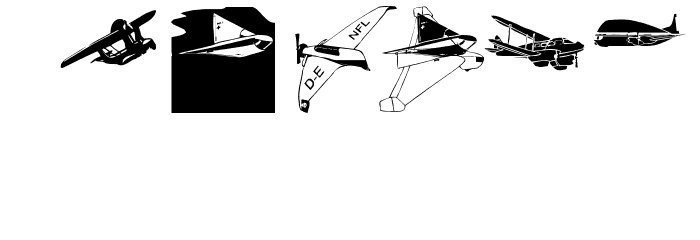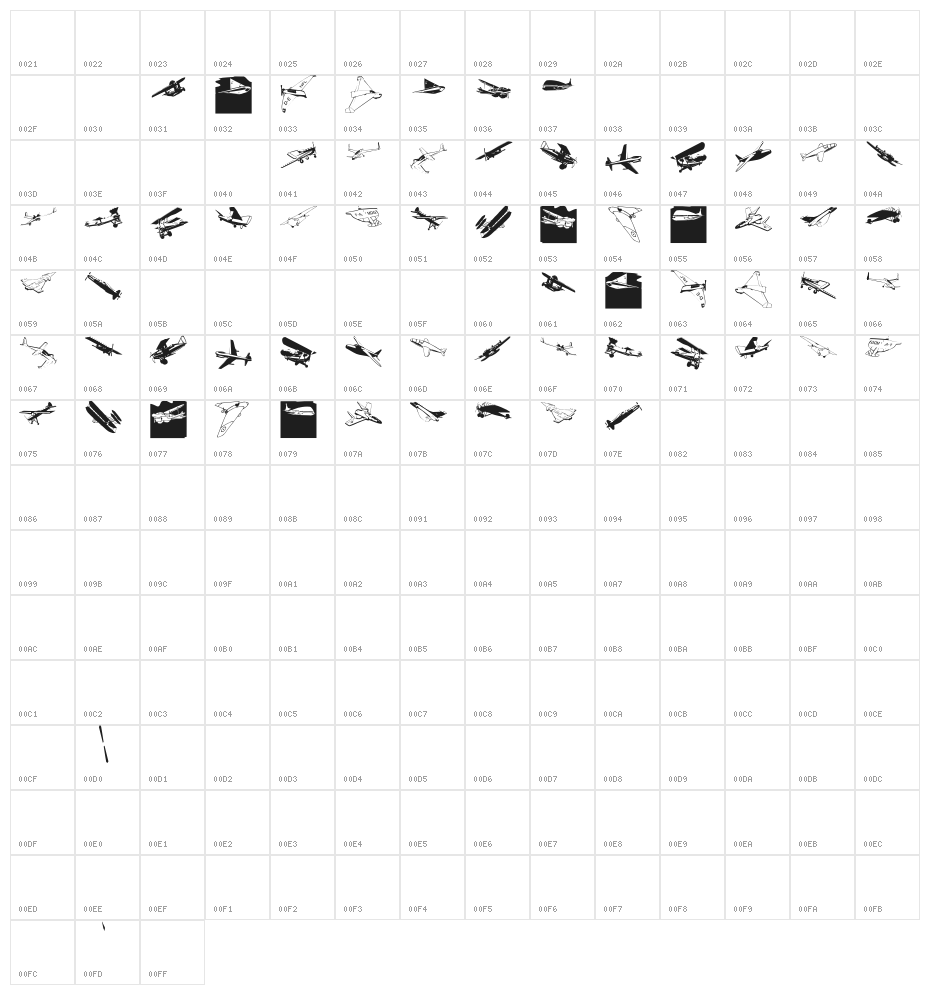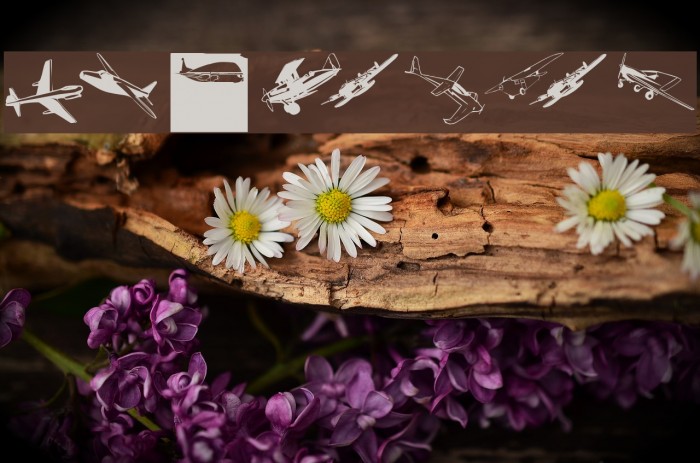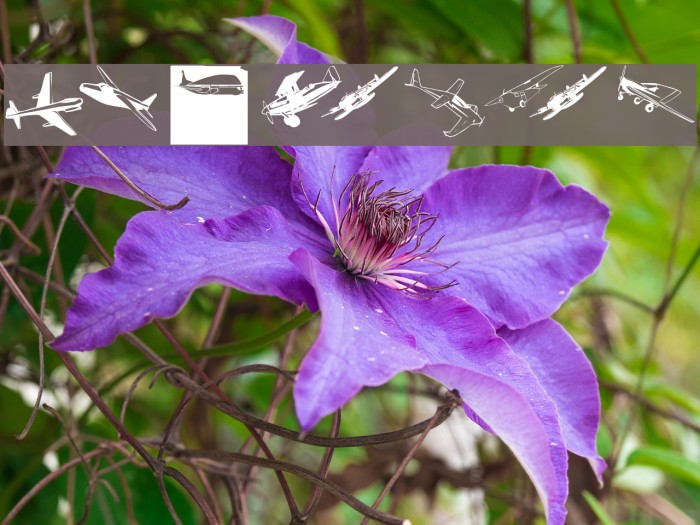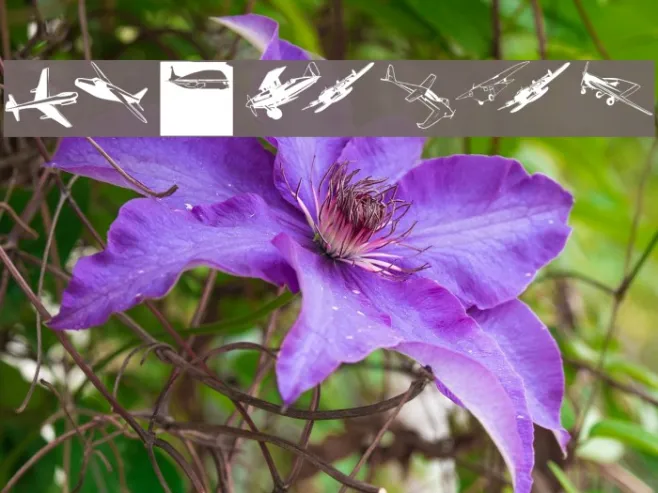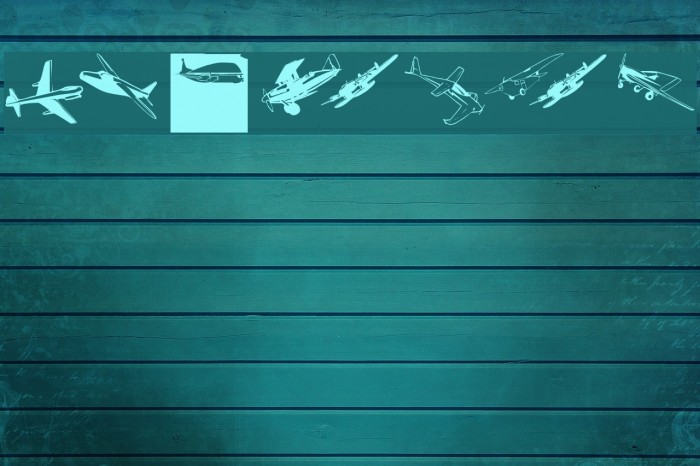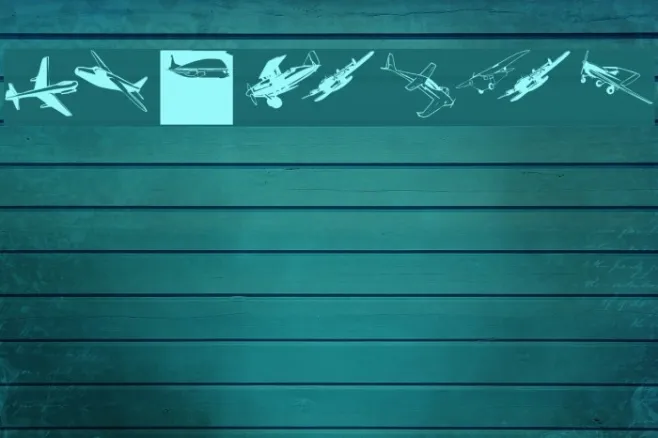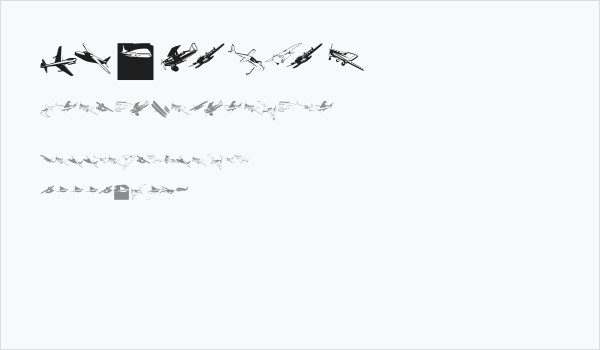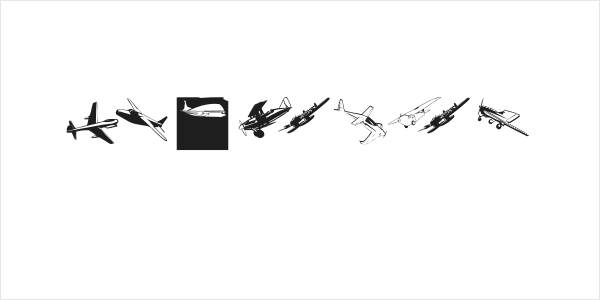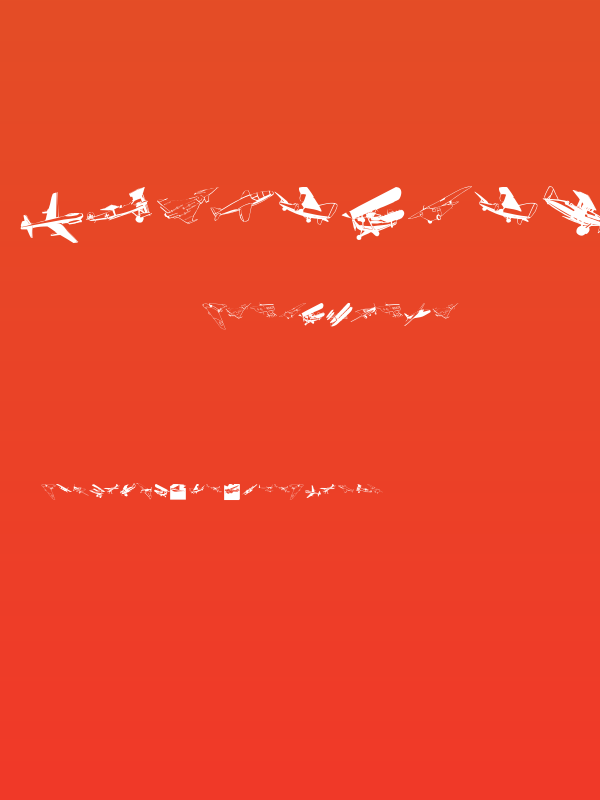
FlyingOne Font
FlyingOne Description
A decorative display font featuring detailed illustrations of various airplanes in place of standard alphanumeric and symbol characters, with each glyph representing a unique aircraft design in black and white line art.
| Overall Style | Decorative, Thematic |
| Use Case | Logos, Posters, Themed Headlines, Educational Graphics |
| Proposed Projects | Aviation-themed posters, educational materials, event flyers, children's books, novelty designs. |